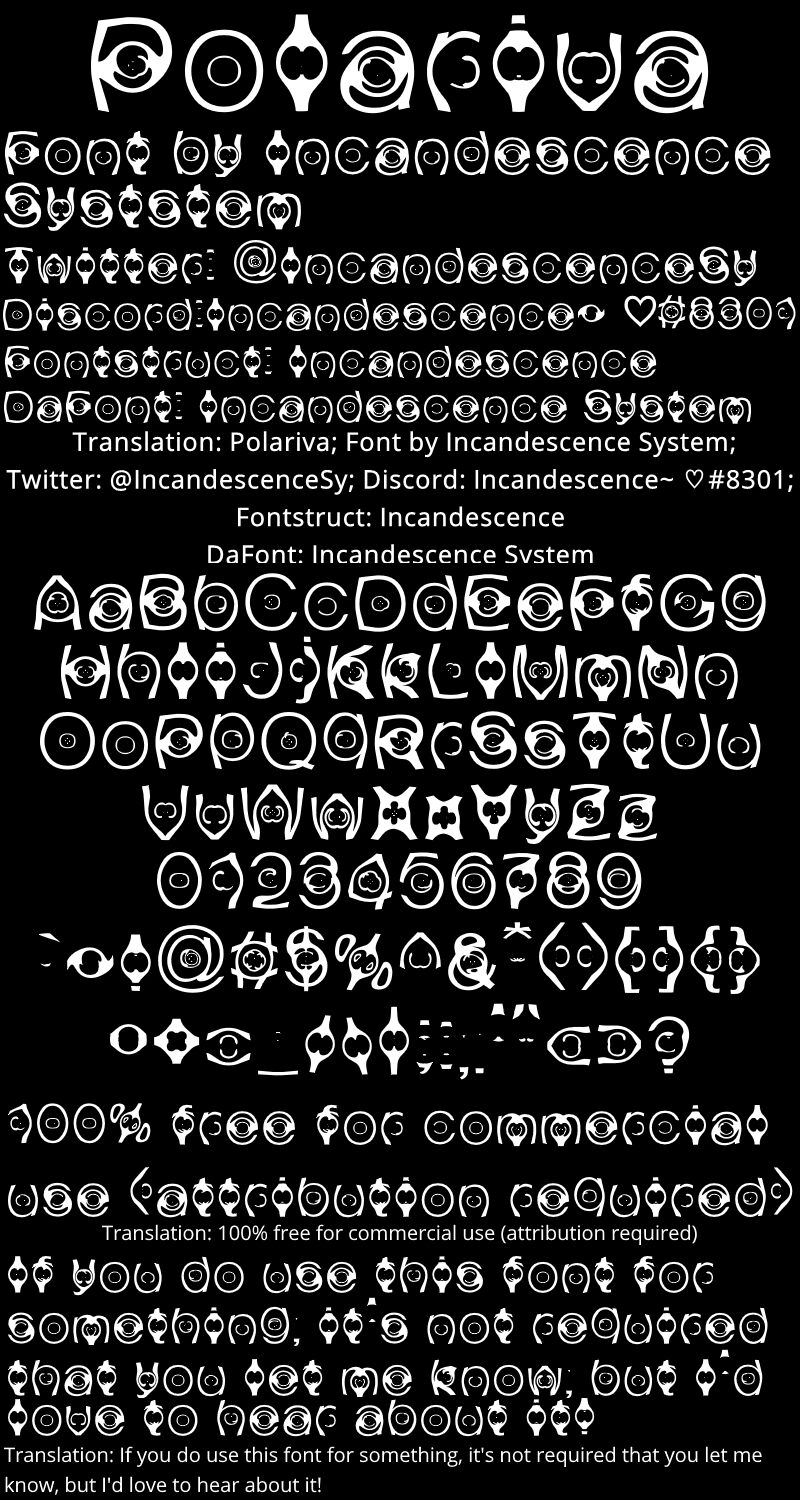
Polariva
Polariva is a decorative display font designed by Incandescence System, with a light weight perfect for giving your projects an eye-catching, yet elegant look. Suitable for everything from stylish logos to creative invitations and posters.